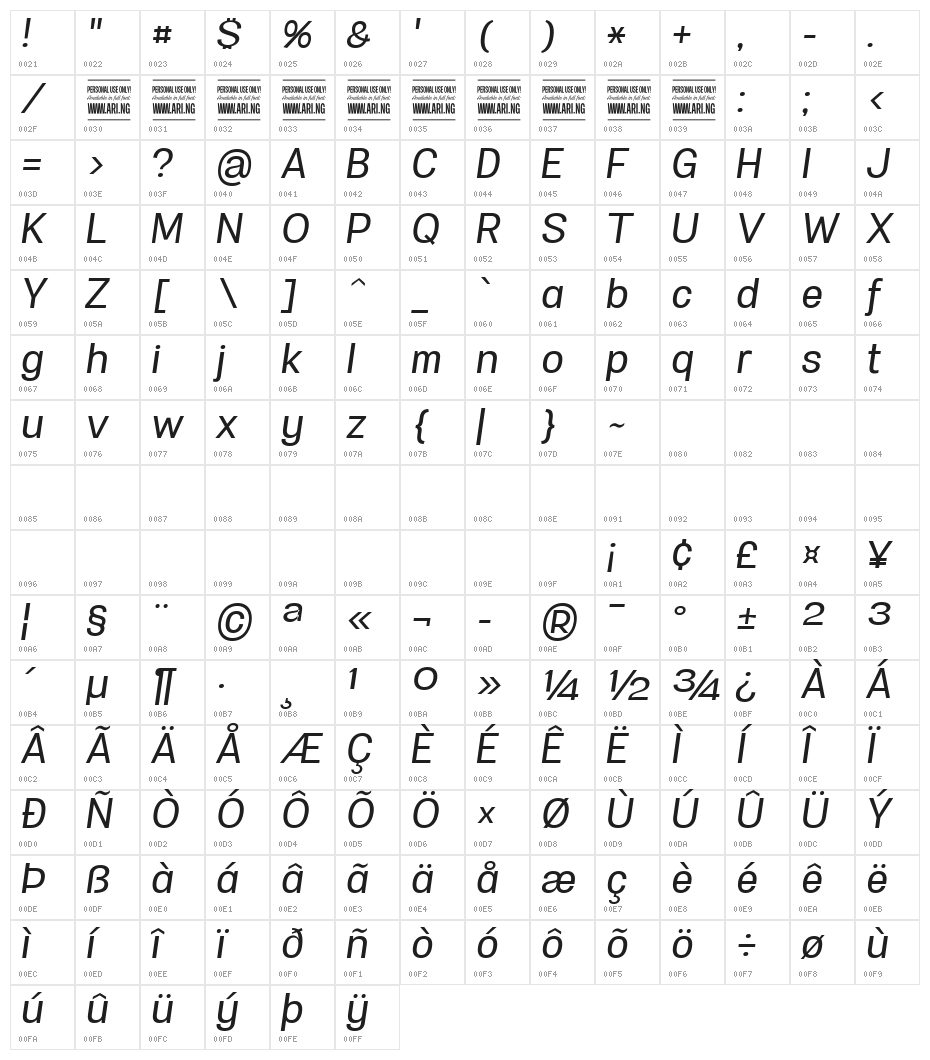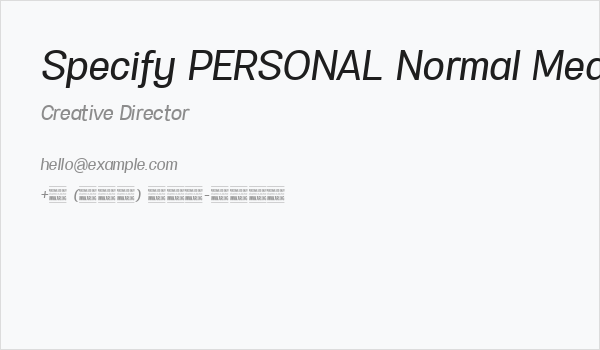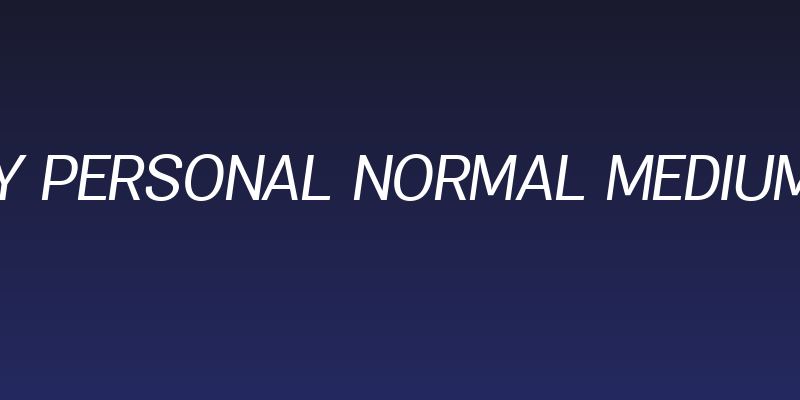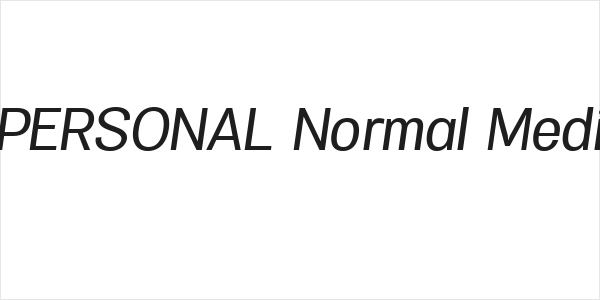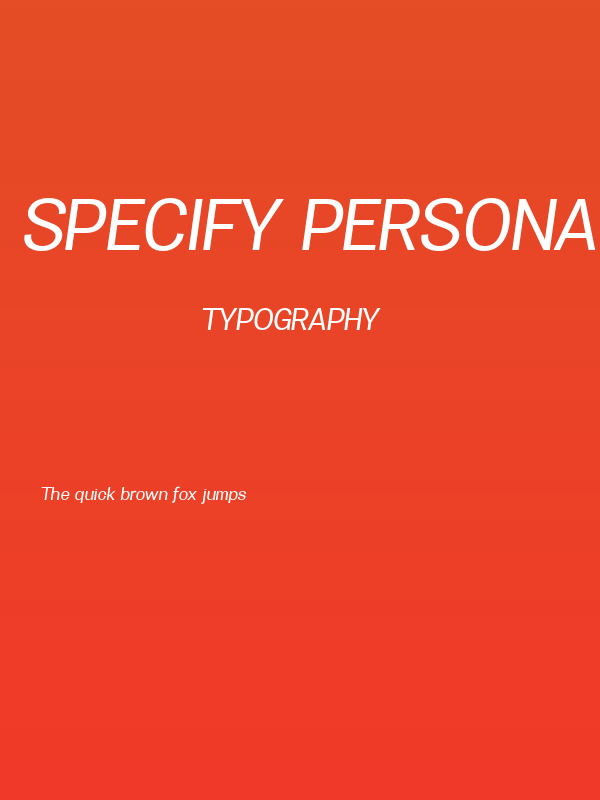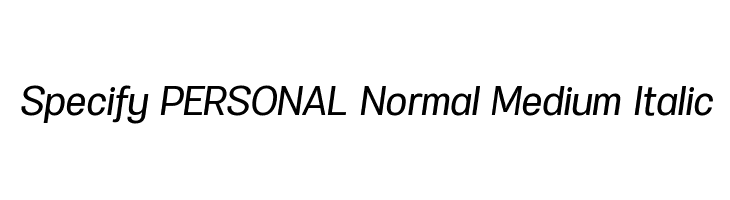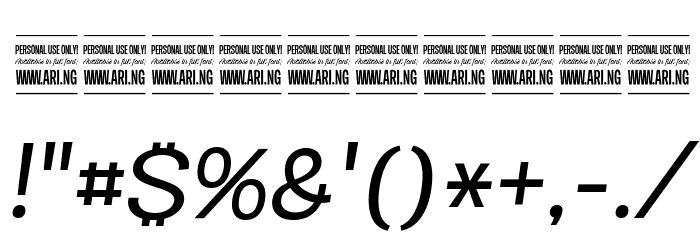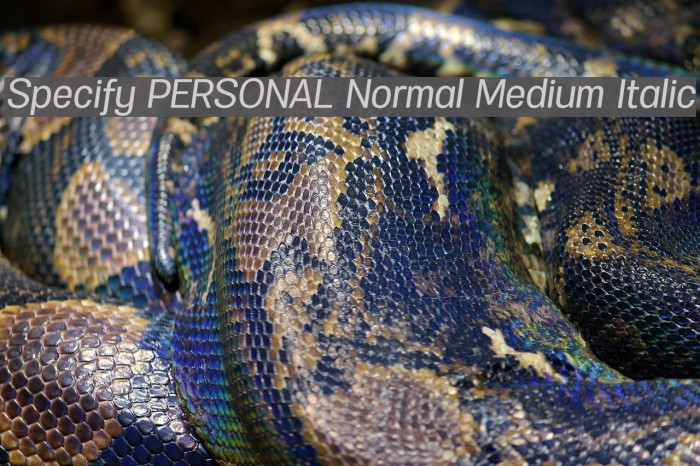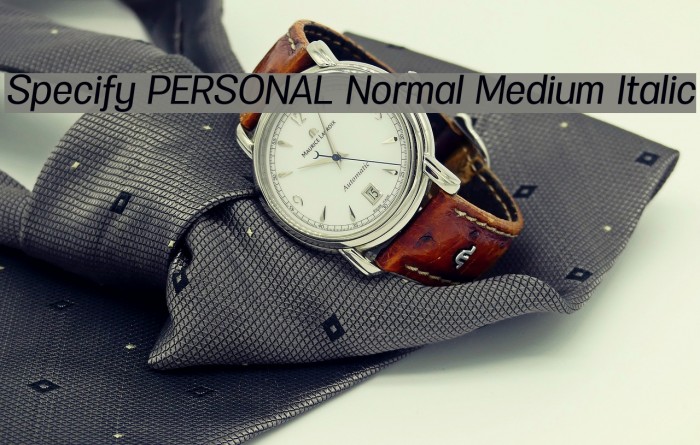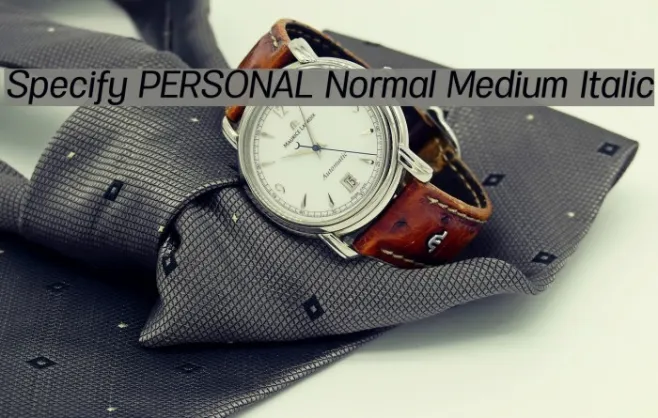
Specify PERSONAL Normal Medium Italic Font
Specify PERSONAL Normal Medium Italic Description
This font features a clean and modern design with a slight italic slant, adding a dynamic feel to the text. The characters are well-proportioned with smooth curves and sharp edges, providing a professional and contemporary appearance. The uppercase and lowercase letters are distinct and easily readable, making it suitable for various applications. The numerals and special characters maintain the same stylistic consistency, ensuring a cohesive look across different uses. The font's medium weight offers a balanced presence, neither too bold nor too light, making it versatile for both digital and print media.
| Proposed Projects | Ideal for branding, advertising, website headers, and editorial design. |